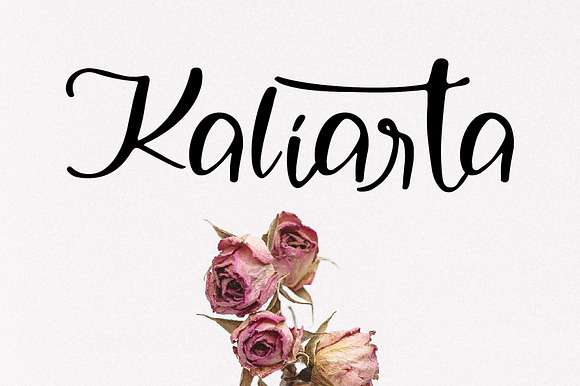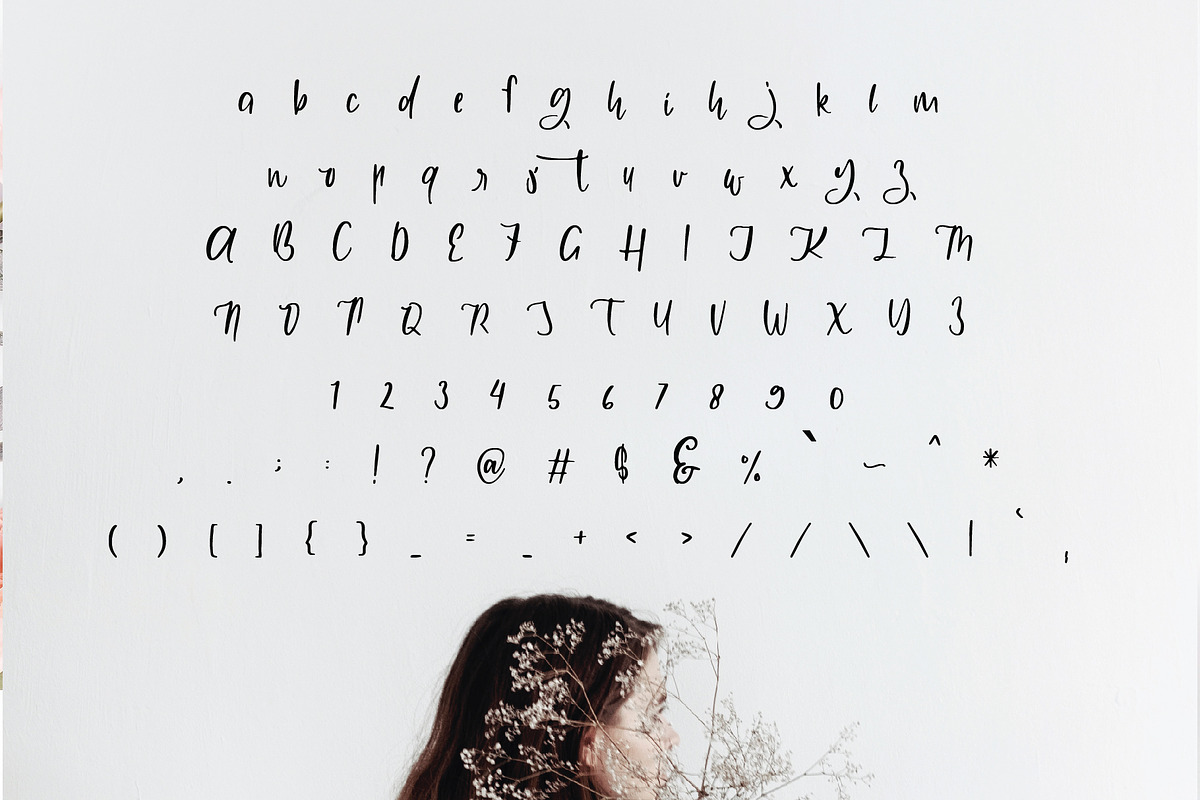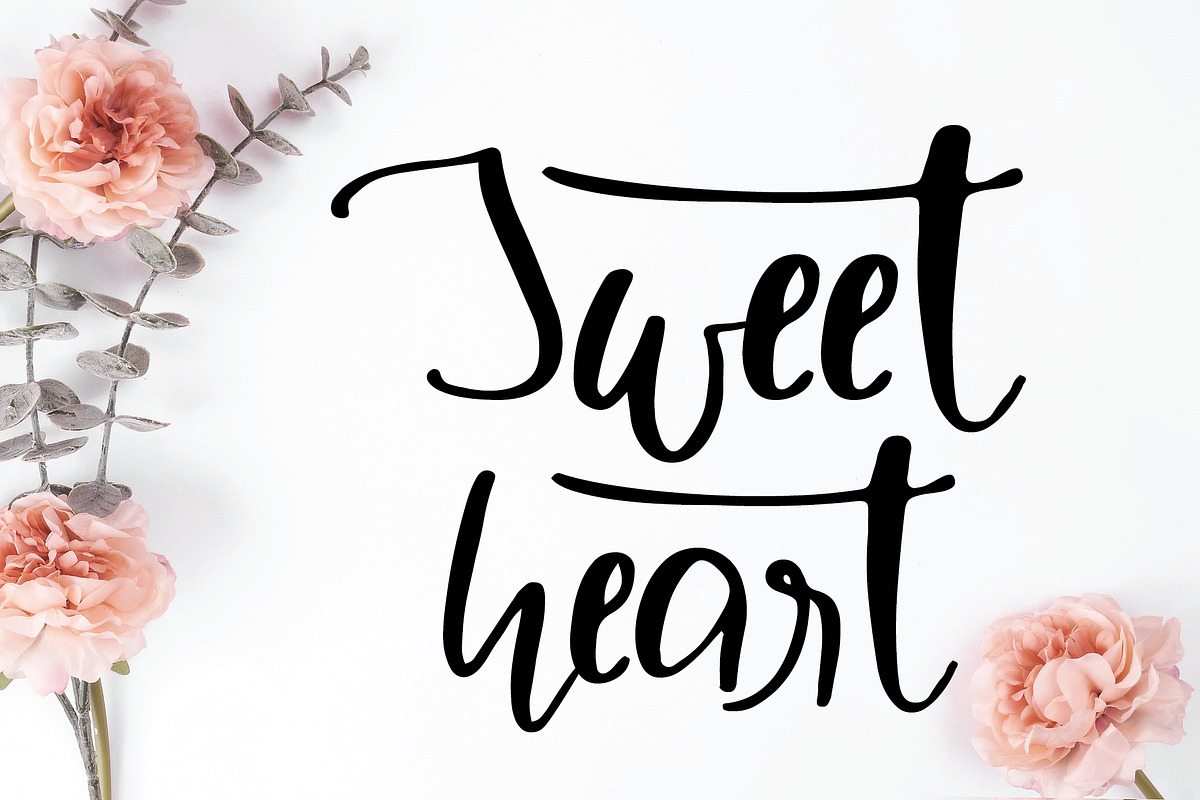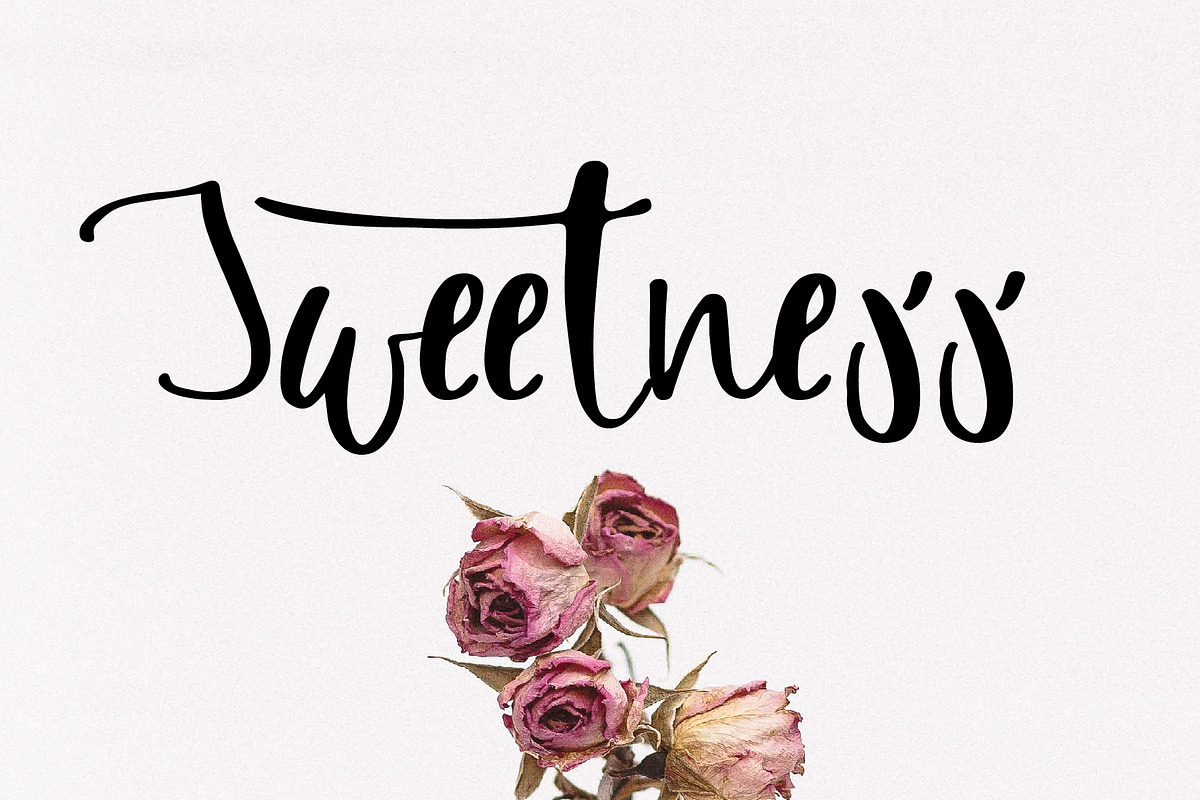
kaliarta font
font is perfect for many different project such as logos & branding, invitations, stationery, wedding designs, social media posts, advertisements, product packaging, product designs, labels, photography, watermarks, special events and more.
Why kaliarta font is worth a look
kaliarta font by Mariyana fits naturally into Branding, posters, packaging, typography.